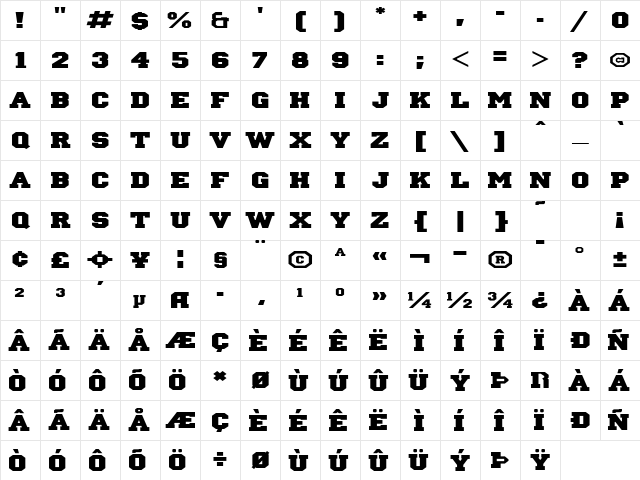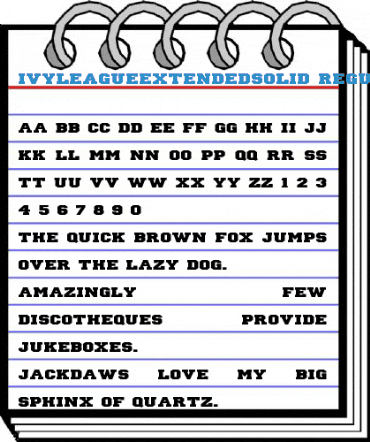
Complete IvyLeagueExtendedSolid Regular glyph index. Displaying only characters natively supported by IvyLeagueExtendedSolid Regular font.
IvyLeagueExtendedSolid is a composed and adaptable typeface that performs quietly and consistently across a wide range of design contexts.